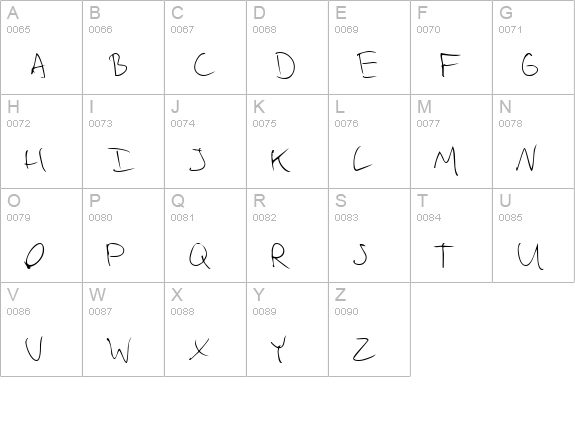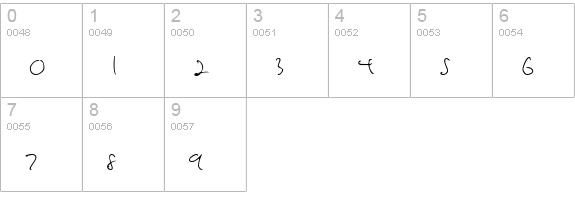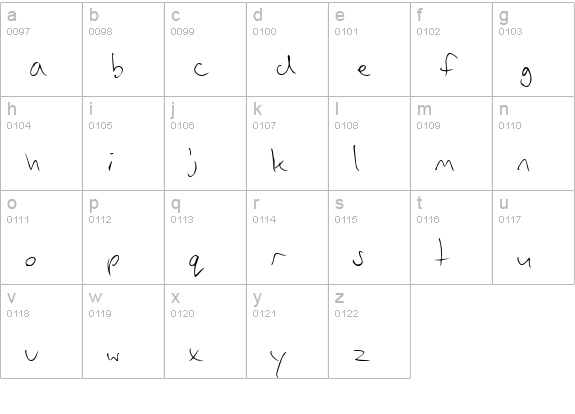
Vadim's Writing Font Details
Introducing Vadim's Writing font, a captivating and versatile typeface that will breathe life into your written words. With its elegant and flowing strokes, this font exudes a sense of sophistication and creativity, making it the perfect choice for a wide range of design projects. Vadim's Writing font beautifully combines classic letterforms with a modern twist, resulting in a harmonious balance between tradition and innovation. Its carefully crafted curves and clean lines ensure legibility, while its unique character adds a touch of personality to any text. But what sets Vadim's Writing font apart is not only its exceptional design but also its accessibility. This font is freely available to download at FontsMarket.com, allowing designers, writers, and enthusiasts alike to enjoy its beauty at no cost. Whether you're working on a personal project or a professional endeavor, this font empowers you to create without limitations. In addition to its aesthetic appeal and its accessibility, Vadim's Writing font offers a wide range of weights and styles, giving you the freedom to experiment and find the perfect fit for your creative vision. From bold and expressive to subtle and refined, this font has it all, making it a versatile tool that adapts to your needs. So why settle for ordinary when you can elevate your designs with Vadim's Writing font? Download it for free at FontsMarket.com and unlock the potential to captivate your audience with its timeless elegance and artistic flair. Let your words come to life and leave a lasting impression with this exceptional font.